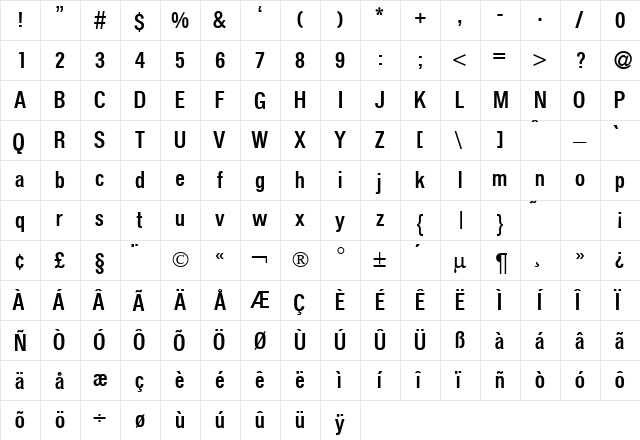
FolderSMedDB Normal
Design Context for FolderSMedDB Typeface
FolderSMedDB offers clean, dependable letterforms without strong stylistic allegiance, making it a practical choice for designers who need flexibility.